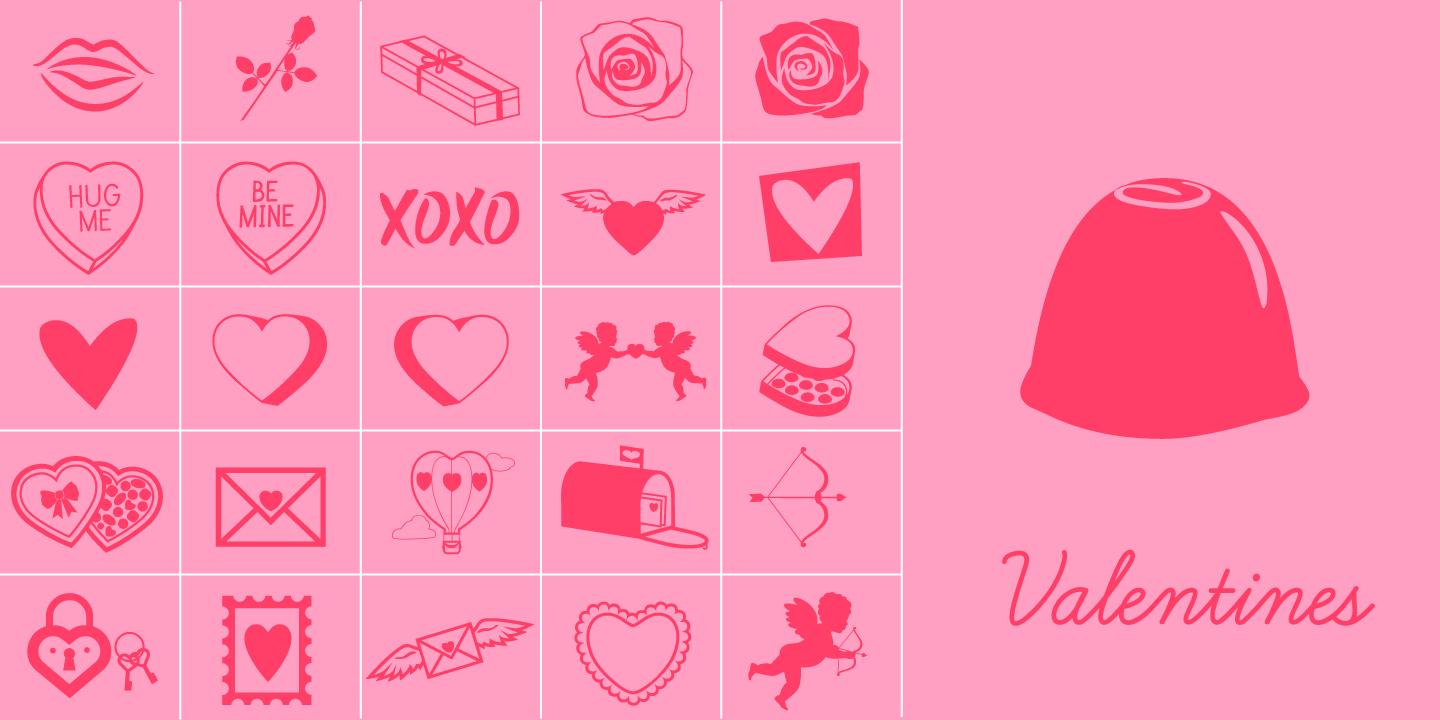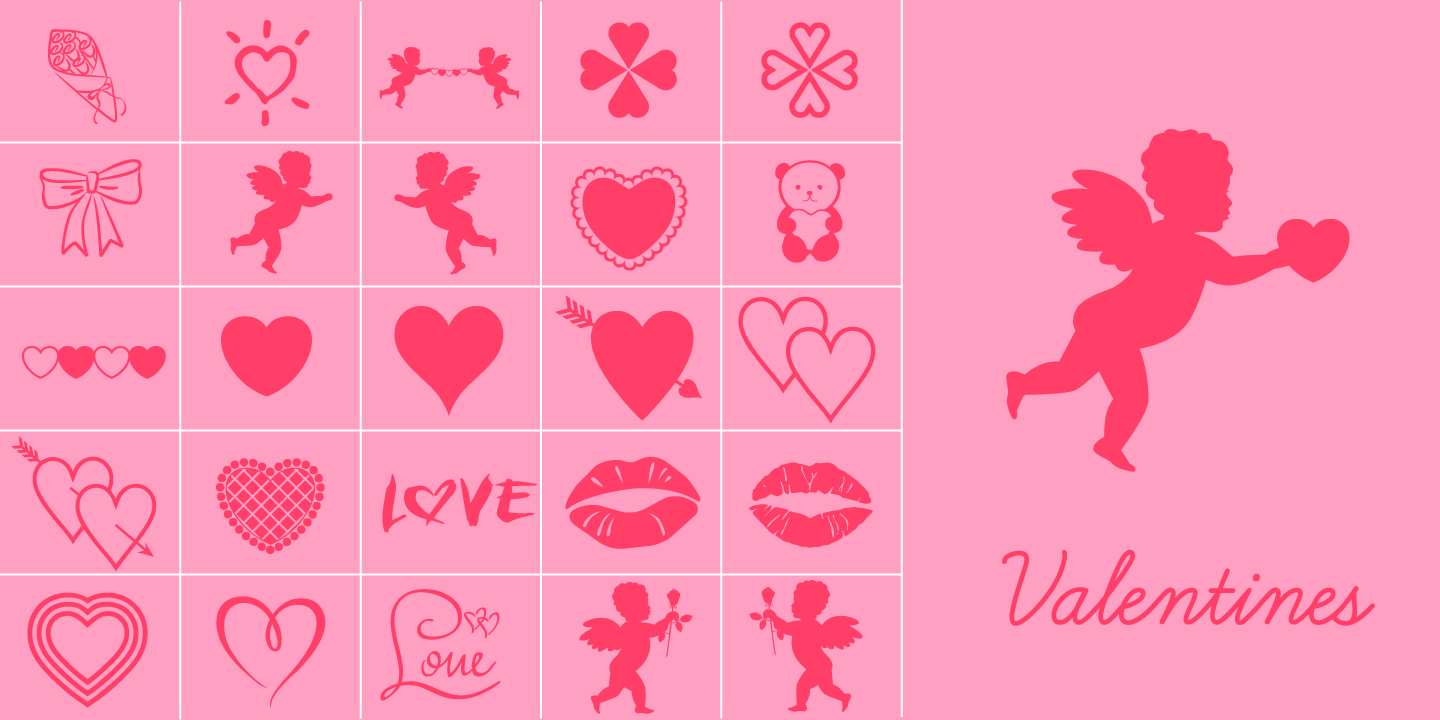
Valentines
This is a huge dingbat font, 92 characters to be exact! Jam-packed with all kinds of little Valentine\’s Day goodies. Hearts (basic to ornamental), Cupids, Chocolates, Roses, Word art, Kisses and on and on.